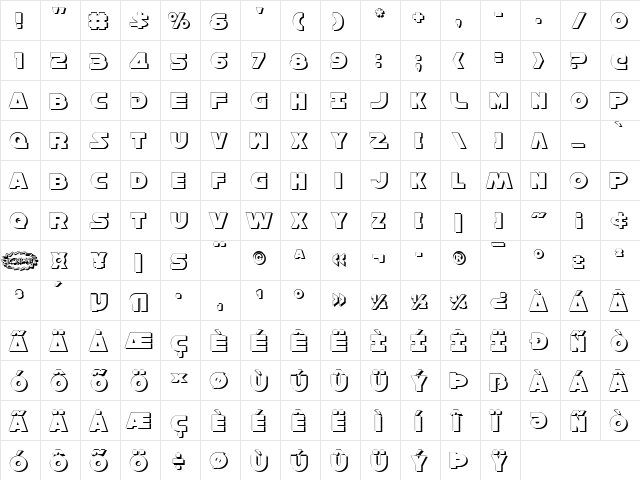
Han Solo Shadow Shadow
| Designer | Dan Zadorozny |
Design Context for Han Solo Shadow Typeface
Han Solo Shadow is built around its visual character rather than neutral utility — its distinctive forms are designed to make an impression at display sizes.
Font Pairing: Pair with a clean neutral sans-serif for body copy to let Han Solo Shadow's character lead without overwhelming the composition.
Pro Tip: Use Han Solo Shadow exclusively at display sizes — it was designed to be seen, not read at length. Let a neutral companion handle body copy.